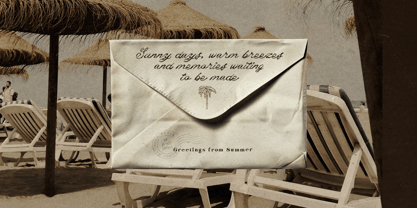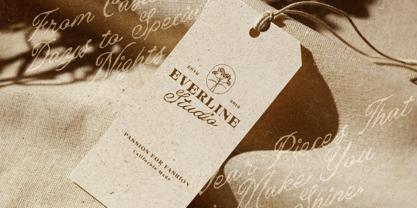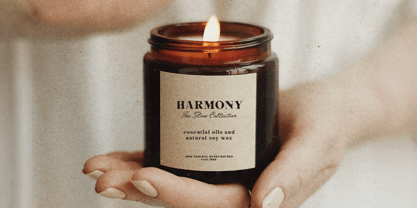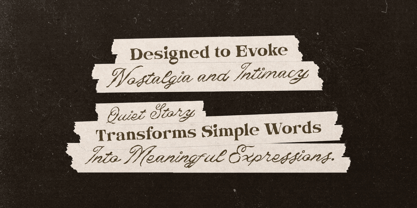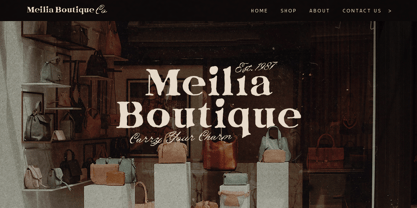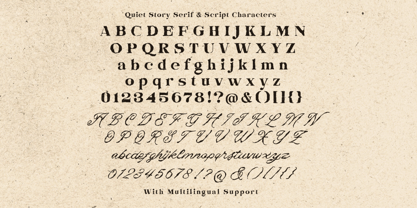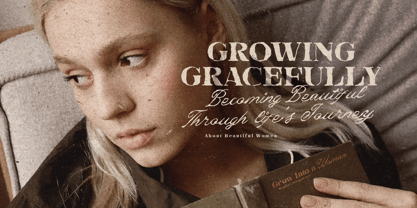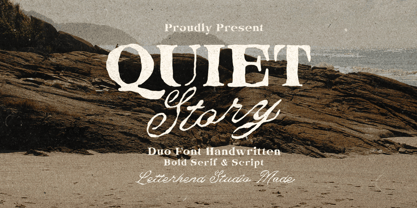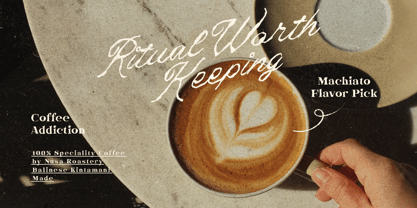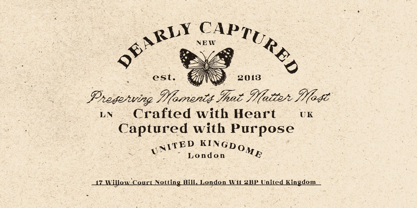
Quiet Story
La familia tipográfica Quiet Story fue diseñada por Hendry Juanda y publicada por Letterhend. Quiet Story contiene 2 estilos y opciones de paquete familiar. Más información sobre esta familia
Quiet Story captures the beauty of handwritten memories and timeless printed pages in a thoughtfully paired serif and script duo. Together they create compositions that feel nostalgic yet refined, making every headline, quote, or brand identity read like a cherished story passed from one generation to the next
Features :
• Uppercase & lowercase
• Numbers and punctuation
• Alternates & Ligatures
• Multilingual Support